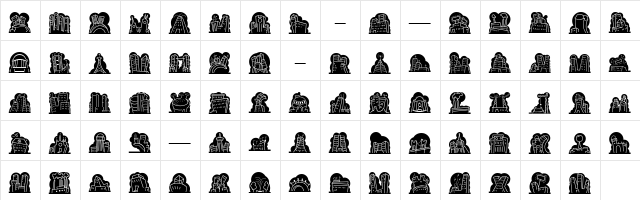
Mini Pics Naked City Night Regular Free Font
Mini Pics Naked City Night Regular
Design Context for Mini Pics Naked City Night
Mini Pics Naked City Night is a composed and adaptable typeface that performs quietly and consistently across a wide range of design contexts.